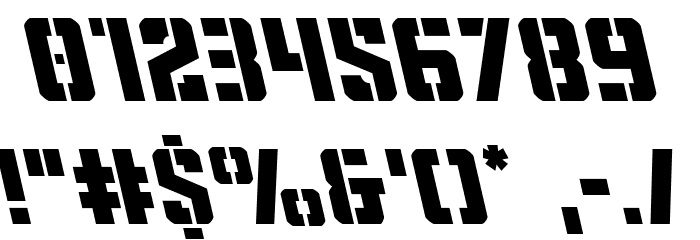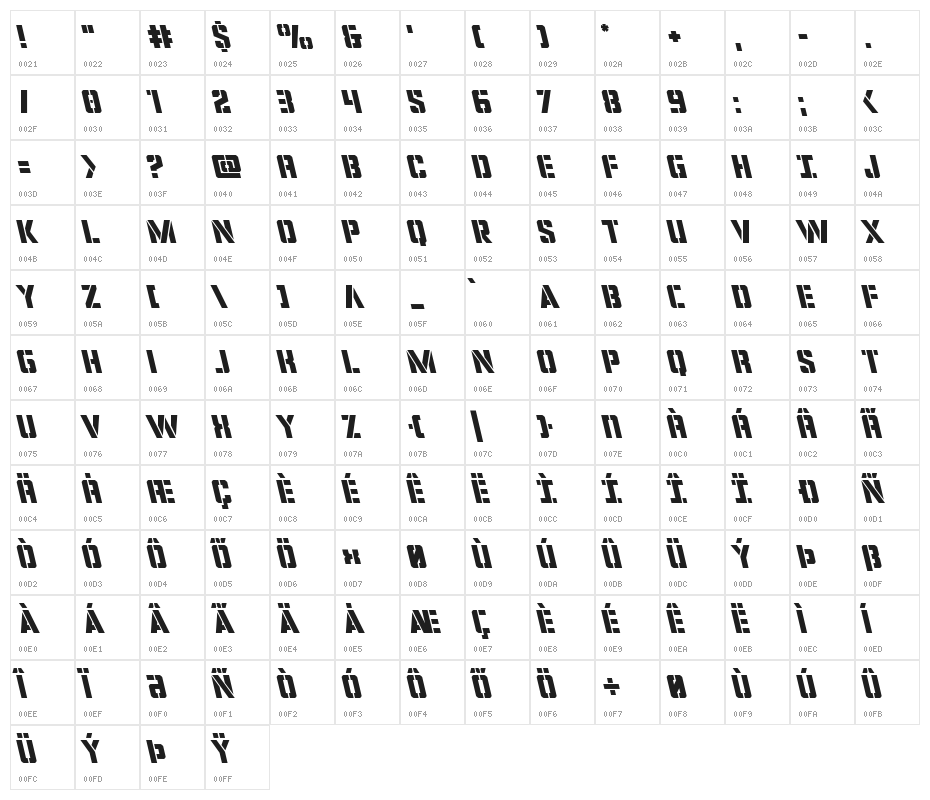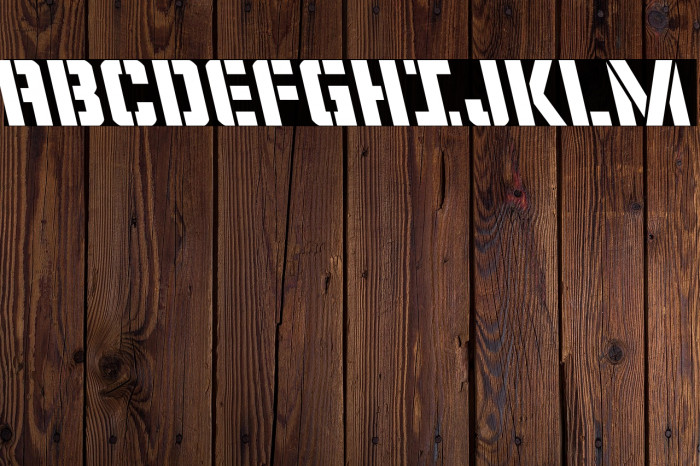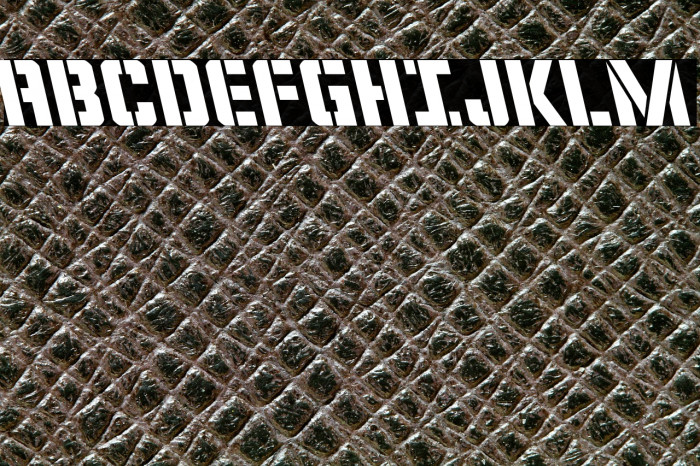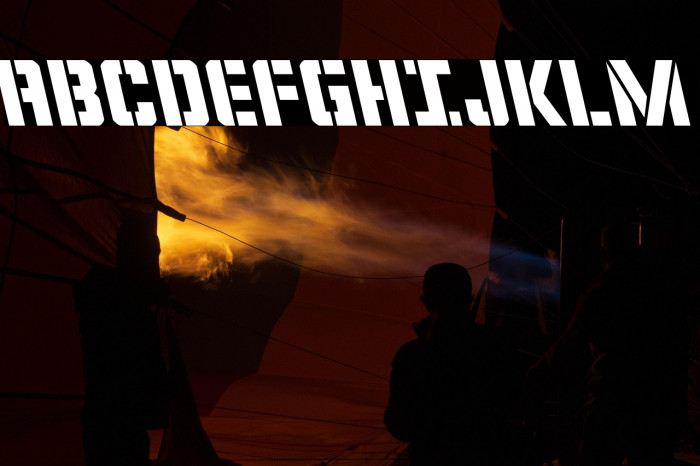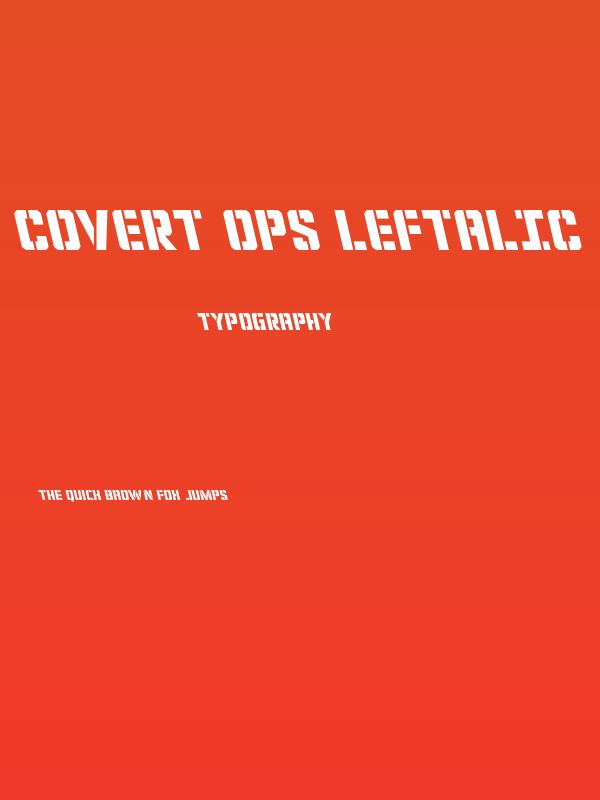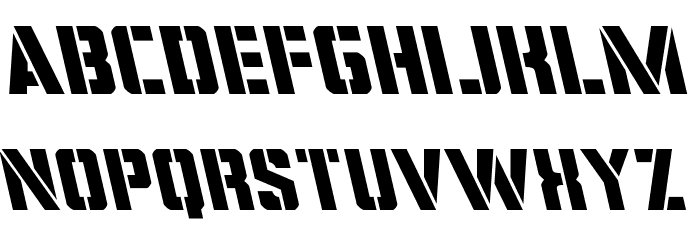
Covert Ops Leftalic Font
Covert Ops Leftalic Description
This font features a bold, angular design with a distinct stencil-like appearance. The characters are sharply cut with a leftward slant, giving it a dynamic and edgy feel. The uppercase and lowercase letters maintain a consistent style, with thick strokes and minimal curves, emphasizing a modern and industrial aesthetic. The numerals and special characters follow the same design principles, ensuring uniformity across all glyphs. This font's unique style makes it stand out, suitable for projects that require a strong and assertive visual impact.